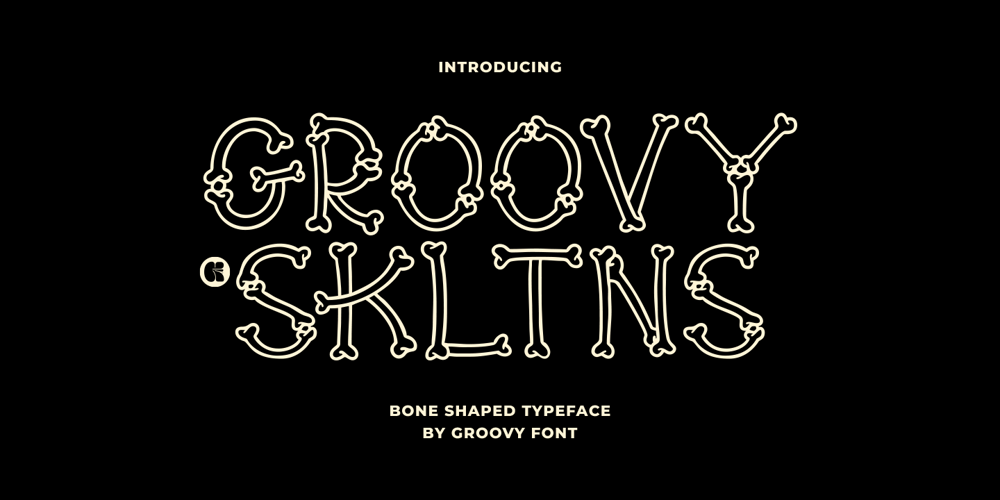
Groovy Skltns Font Family was designed by Ahmad Ginanjar Riyadi and published by Groovy Font. Groovy Skltns contains 1 styles and family package options. Groovy Skltns is a bone-shaped typeface that creatively combines bone structures to form each letter. The unique design of this font gives a spooky and unique aesthetic to any text or design it is applied to, giving a unique and memorable touch to your projects.What’s you’ll get : – Uppercase, Lowercase, Numeral, Punctuation & Multilingual.For any questions please contact me 🙂Thank You !